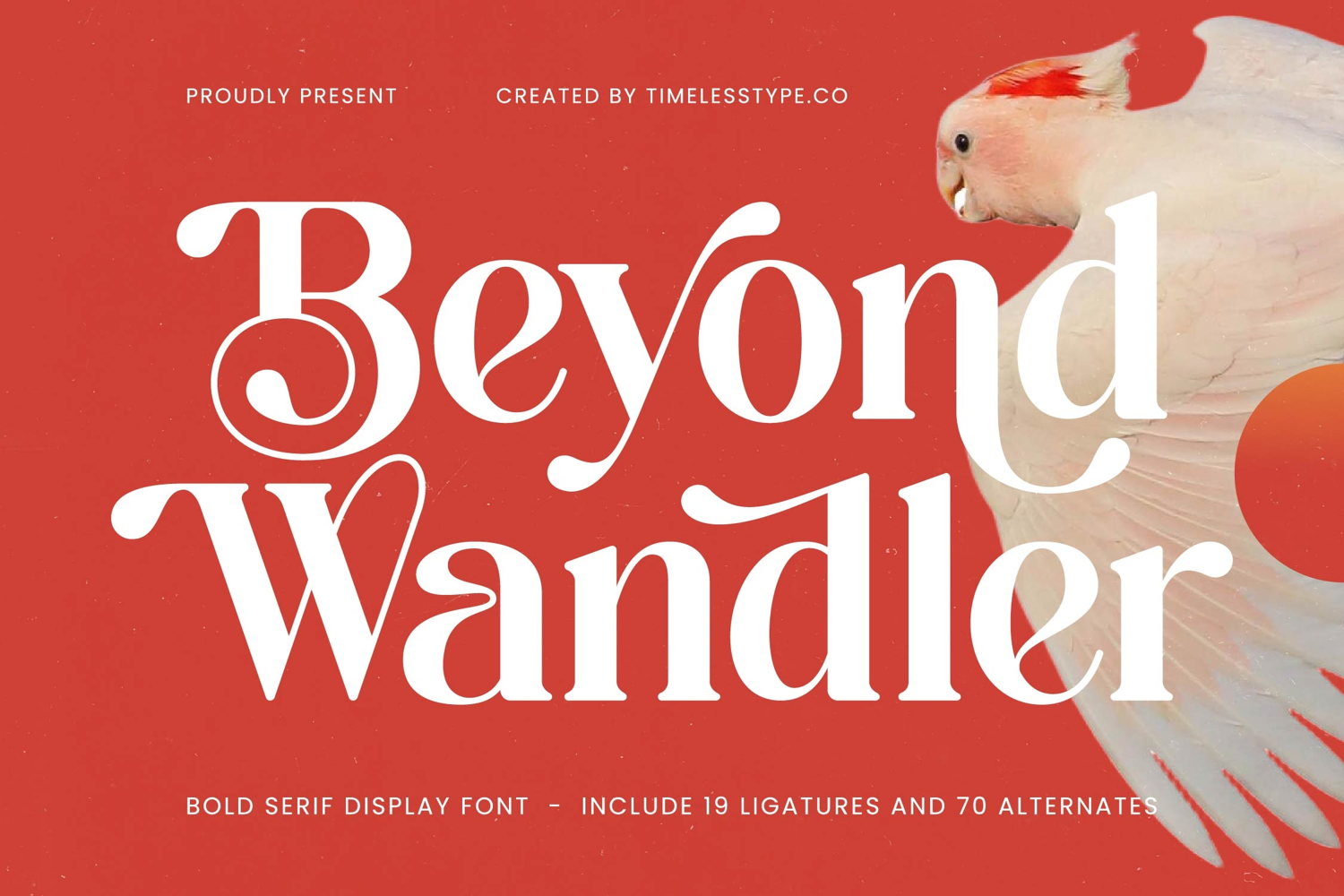
Beyond Wandler - Bold Serif Display Font
Beyond Wandler Italic
Beyond Wandler
Beyond Wandler - Bold Serif Display Font
Command immediate attention with Font Beyond Wandler - Bold Serif Display Font Serif Display, a typeface meticulously crafted to exude unparalleled elegance and bold sophistication. This high-contrast serif display font features expressive letterforms and luxurious curves that instantly elevate any design. Its distinctive aesthetic is perfect for projects demanding a memorable visual statement and refined grandeur.
Unlock boundless creative possibilities with the comprehensive suite of 19 ligatures and 70 alternates included in Font Beyond Wandler - Bold Serif Display Font Serif Display. These extensive stylistic options allow for truly bespoke typographic compositions, enabling designers to create unique and dynamic headlines, logotypes, and branding elements that stand out with originality and flair.
Expand your design reach globally. With its extensive multilingual support, Font Beyond Wandler - Bold Serif Display Font Serif Display adapts seamlessly across global markets, making it incredibly versatile for international projects. This ensures your brand message resonates with diverse audiences, maintaining its distinctive charm and professional appeal no matter the language.
Perfectly suited for luxury branding, high-end editorial design, prestigious packaging, fashion magazines, and exclusive event invitations, Font Beyond Wandler - Bold Serif Display Font Serif Display is designed to make a profound impact. Choose this font to infuse your work with timeless beauty and unmistakable character, ensuring your visuals always convey premium quality and sophisticated style.